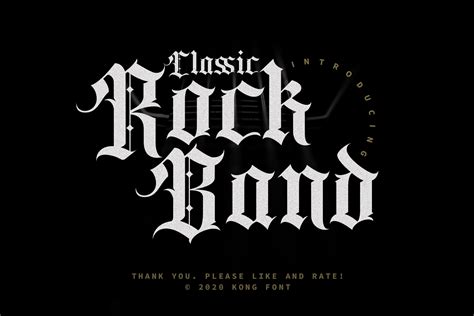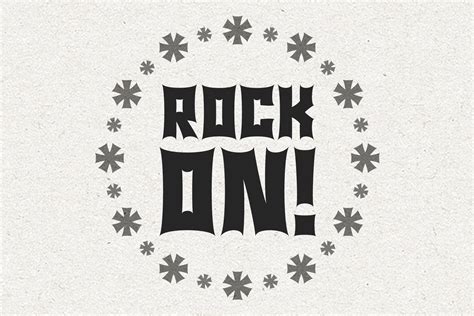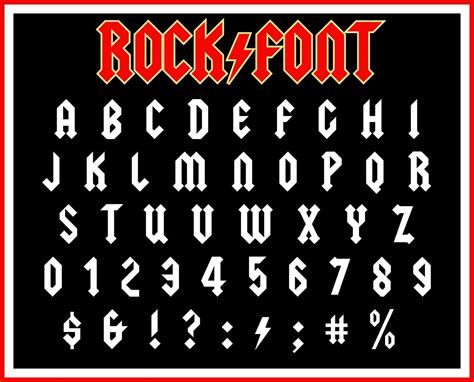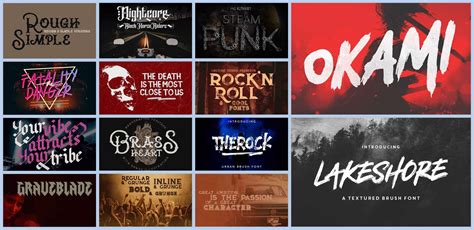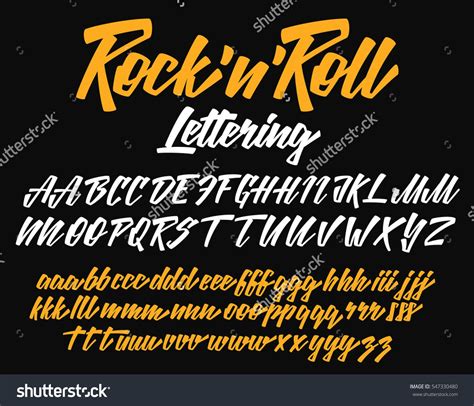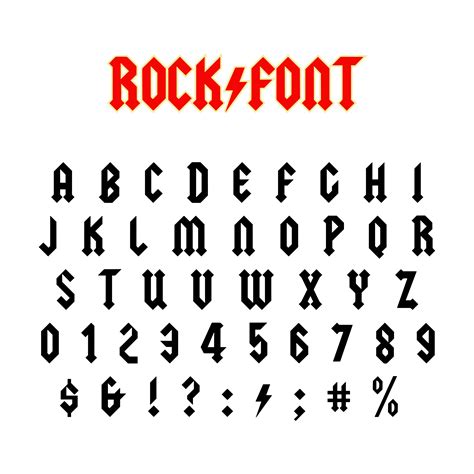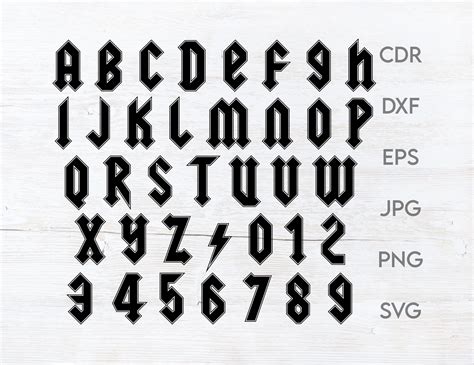
In the world of design and typography, the choice of font can make or break a project. One font that has stood the test of time and continues to be a favorite among designers is the Rock And Roll Font. This font is not just a typeface; it's a statement, a nod to the rebellious spirit of rock and roll music, and a versatile tool for designers looking to add a touch of edginess to their work.
What is the Rock And Roll Font?
The Rock And Roll Font is a distinctive typeface that captures the essence of the rock and roll era. It is characterized by its bold, dynamic, and often grungy appearance, making it perfect for projects that require a high-energy, rebellious vibe. This font is often used in music-related designs, band logos, concert posters, and any other project that aims to evoke the spirit of rock and roll.
History and Inspiration
The Rock And Roll Font draws inspiration from the iconic typography of the 1950s and 1960s, a time when rock and roll music was at its peak. The font’s design elements, such as its thick, bold strokes and sometimes irregular shapes, are reminiscent of the hand-painted signs and album covers of that era. This historical context adds a layer of authenticity and nostalgia to any design that uses the Rock And Roll Font.
Characteristics of the Rock And Roll Font
The Rock And Roll Font is known for several key characteristics that set it apart from other typefaces:
- Bold and Dynamic: The font features thick, bold strokes that create a strong visual impact. This makes it ideal for headlines, logos, and any text that needs to stand out.
- Grunge Elements: Many variations of the Rock And Roll Font include grunge or distressed effects, adding a raw and edgy feel to the text. This is perfect for designs that aim to capture the rebellious spirit of rock and roll.
- Versatility: Despite its bold and dynamic nature, the Rock And Roll Font is surprisingly versatile. It can be used in a variety of contexts, from music-related designs to more general projects that require a touch of edginess.
- Legibility: While the font is bold and dynamic, it remains highly legible, ensuring that the message is clear and easy to read.
Applications of the Rock And Roll Font
The Rock And Roll Font is incredibly versatile and can be used in a wide range of applications. Here are some of the most common uses:
- Band Logos: The font’s bold and dynamic appearance makes it perfect for band logos, helping to create a strong visual identity for musicians and bands.
- Concert Posters: The Rock And Roll Font is a staple in concert poster design, adding a touch of authenticity and energy to event promotions.
- Album Covers: The font’s grunge elements and bold strokes make it ideal for album covers, helping to capture the spirit of the music within.
- T-Shirts and Merchandise: The Rock And Roll Font is often used on t-shirts, posters, and other merchandise, adding a rebellious touch to fashion and accessories.
- General Design Projects: Beyond music-related designs, the Rock And Roll Font can be used in a variety of general design projects, from advertising to branding, where a bold and edgy look is desired.
Design Tips for Using the Rock And Roll Font
While the Rock And Roll Font is a powerful tool, it’s important to use it effectively to achieve the desired impact. Here are some design tips to help you make the most of this font:
- Pairing with Other Fonts: The Rock And Roll Font works best when paired with simpler, more neutral fonts. This helps to balance the boldness of the rock and roll font and ensures that the design remains legible and cohesive.
- Color Choices: Choose colors that complement the edgy nature of the font. Dark, bold colors like black, red, and metallic shades can enhance the rock and roll vibe.
- Size and Placement: Use the Rock And Roll Font for headlines, logos, and other prominent text elements. Avoid using it for body text, as its bold nature can make it difficult to read in larger blocks of text.
- Consistency: Maintain consistency in your use of the font. If you’re using it for a logo or headline, ensure that it is used consistently across all related materials to create a strong visual identity.
Examples of the Rock And Roll Font in Action
To better understand the versatility and impact of the Rock And Roll Font, let’s look at some examples of how it has been used in various design projects.
One of the most iconic uses of the Rock And Roll Font is in band logos. Many famous bands have used this font to create a strong, memorable visual identity. For example, the logo for a fictional band might feature the band’s name in bold, grungy letters, with a distressed effect that adds to the rebellious vibe.
Concert posters are another area where the Rock And Roll Font shines. The bold, dynamic strokes of the font make it perfect for capturing the energy and excitement of a live music event. A concert poster might feature the event details in the Rock And Roll Font, with additional text in a simpler, more neutral font to ensure legibility.